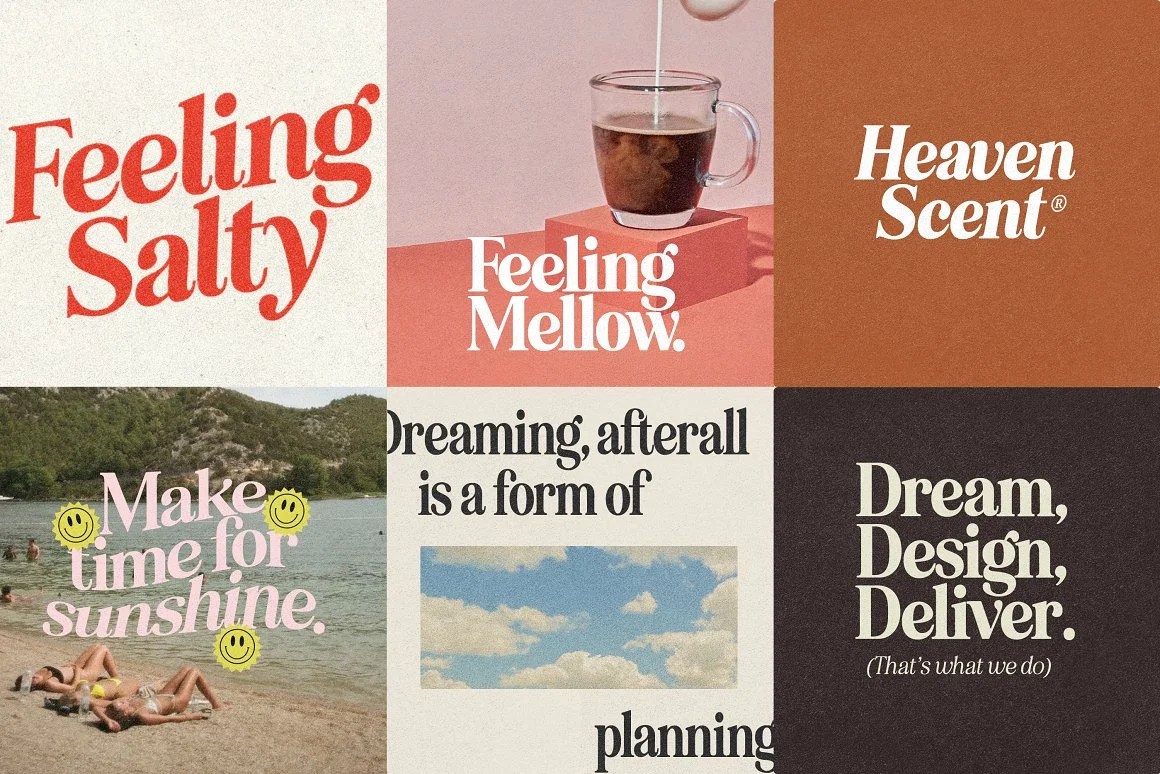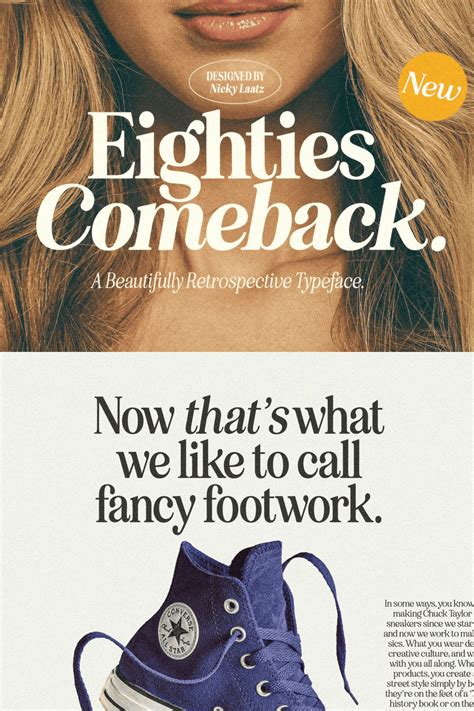
Eighties Comeback Font. Web eighties comeback font is a flirtatiously charming and highly versatile typeface that beautifully captures the. Web 70 fonts for eighties comeback is regular and italic, varying from light to black in weight, and ultra condensed to regular in width.
Eighties Comeback Serif (70 fonts) by Nicky Laatz
Web 70 fonts for eighties comeback is regular and italic, varying from light to black in weight, and ultra condensed to regular in width. Web 70 fonts for eighties comeback is regular and italic, varying from light to black in weight, and ultra condensed to regular in width. Web eighties comeback serif (70 fonts) free download. Featuring 70 fonts, it offers. Web eighties comeback font is a flirtatiously charming and highly versatile typeface that beautifully captures the.